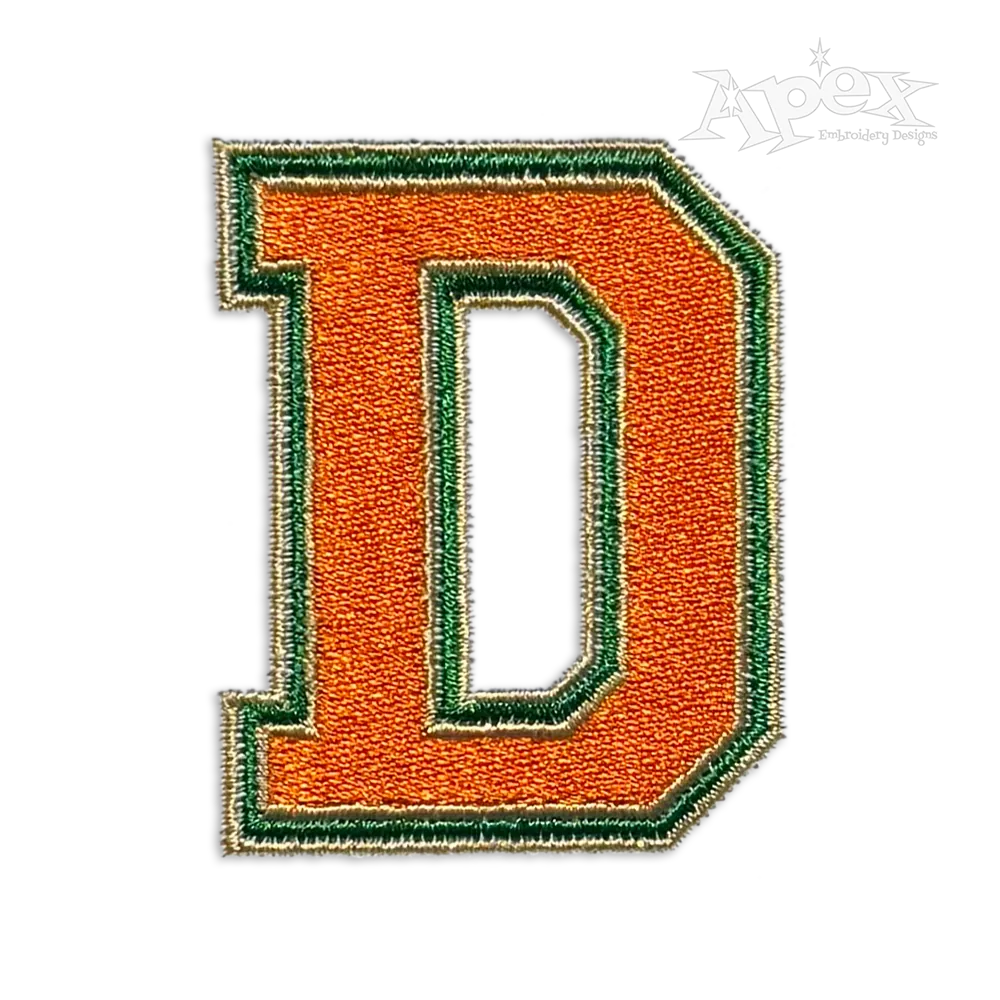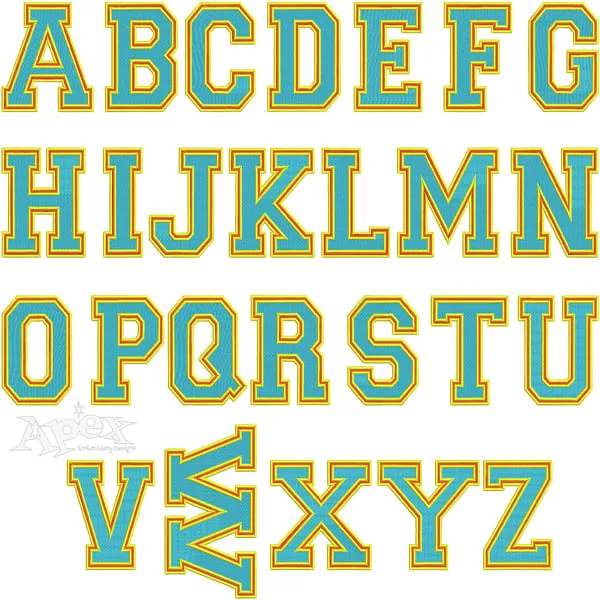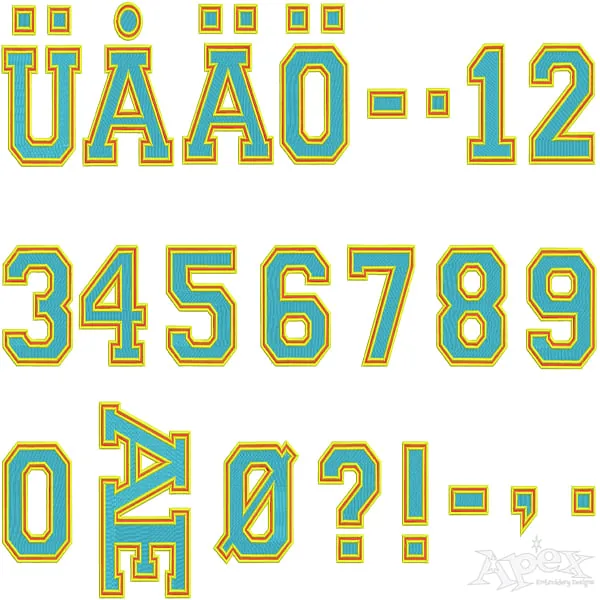
Block Embroidery Font
In the quiet rhythm of our design studio, the Block Embroidery Font was born from a deep appreciation for architectural symmetry and timeless typographic purity. We envisioned an alphabet stripped of fleeting ornament, where the quiet confidence of clean geometry and immaculate satin stitch flow command the eye. Each uppercase letter is rendered with statuesque presence and balanced proportions, turning everyday textiles into tailored, bespoke heirlooms. Whether you are adorning heavy canvas totes with commanding initials or embellishing fine resort wear with crisp personal monograms, this collection balances modern minimalism with rich, tactile stitch craftsmanship.
Carefully scaled to accommodate both bold statement placements and refined everyday accents, this uppercase collection delivers needle-sharp precision across two versatile heights:
- 4-Inch Uppercase Letters: A commanding scale engineered for center-stage statements on luxury tote bags, fleece jackets, and decorative pillow centers.
- 2.3-Inch Uppercase Letters: An adaptable, elegant proportion ideal for classic left-chest emblems, tailored cuffs, and personalized table linens.
Each letterform is digitized as an individual machine embroidery design file, balanced and prepared for seamless precision stitching on modern embroidery machines.
Block Embroidery Font Craft & Letterform Details
True geometric minimalism allows no room for error; every column turn must be calculated and every terminating edge razor-sharp. When digitizing the Block Embroidery Font, our artisan focus centered entirely on column density, stitch angle refraction, and edge stability. We built an intentional underlay network that floats the smooth satin columns above the textile grain, preventing stitch sinkage in thick waffle weaves and guarding against puckering on fine linens. Each intersection where vertical and horizontal strokes meet is calibrated with feather-softened overlaps, eliminating bulky thread clusters while ensuring corners finish crisp and square. The final result is a radiant, high-density satin stitch alphabet that transforms traditional block lettering into an enduring art form.